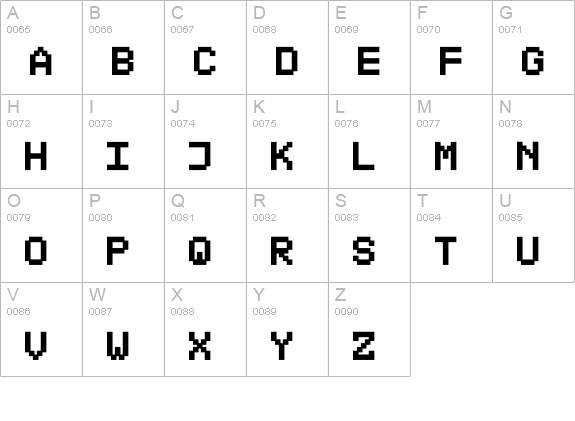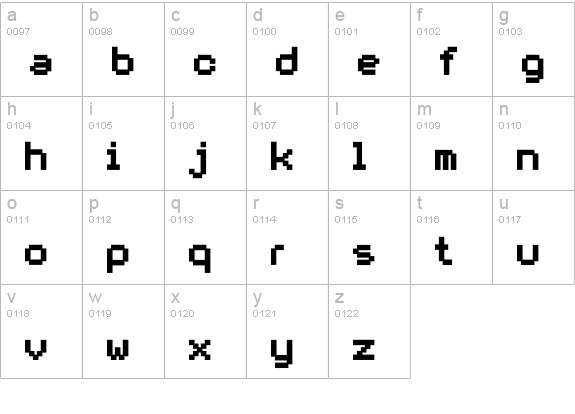
DS VDOTXT1 Font Details
DS VDOTXT1 is a modern and sleek font that exudes a futuristic and tech-savvy vibe. Its clean lines and sharp edges make it perfect for a wide range of design projects, from digital interfaces to branding materials. This font offers a unique and eye-catching style that will make your text stand out from the crowd. The best part about DS VDOTXT1 is that it is free to download at FontsMarket.com. This means you can easily access this stylish font without any cost, making it a great choice for both personal and commercial use. Whether you're creating a website, designing a logo, or working on a print project, DS VDOTXT1 is sure to add a contemporary touch to your work. Download this font today and elevate your designs with its modern aesthetic.